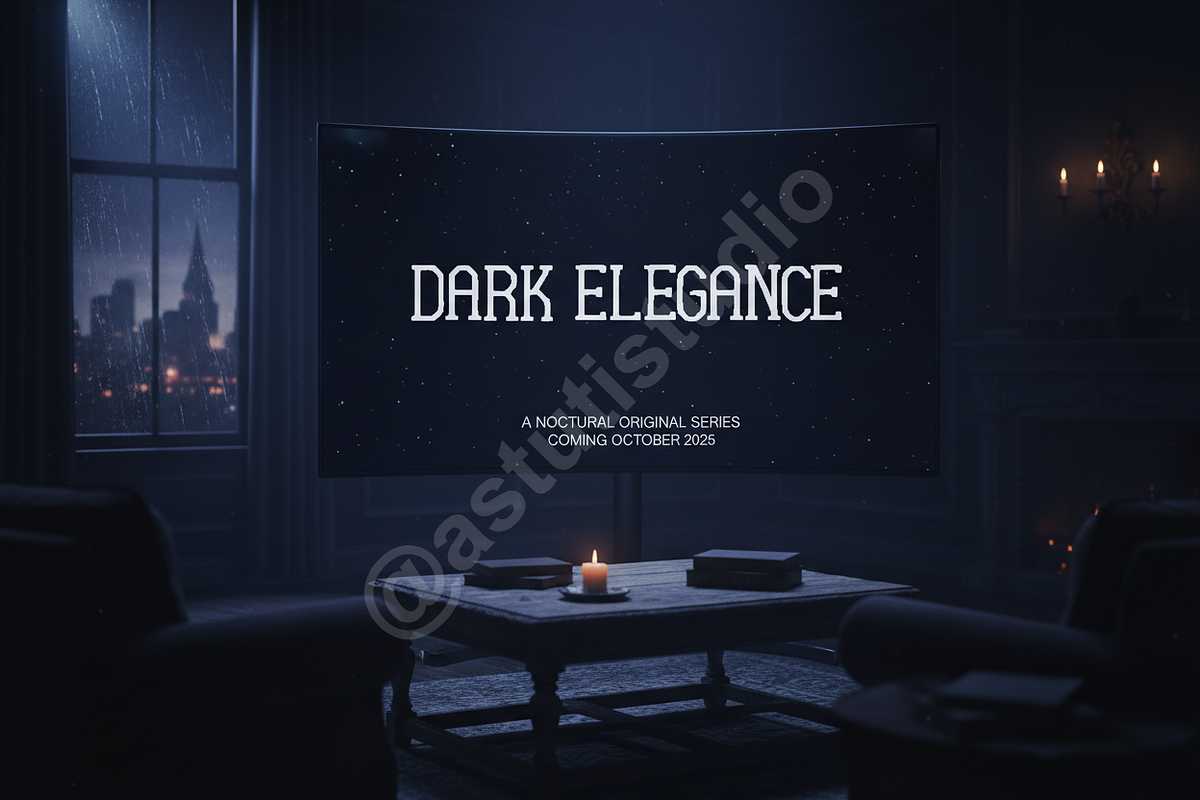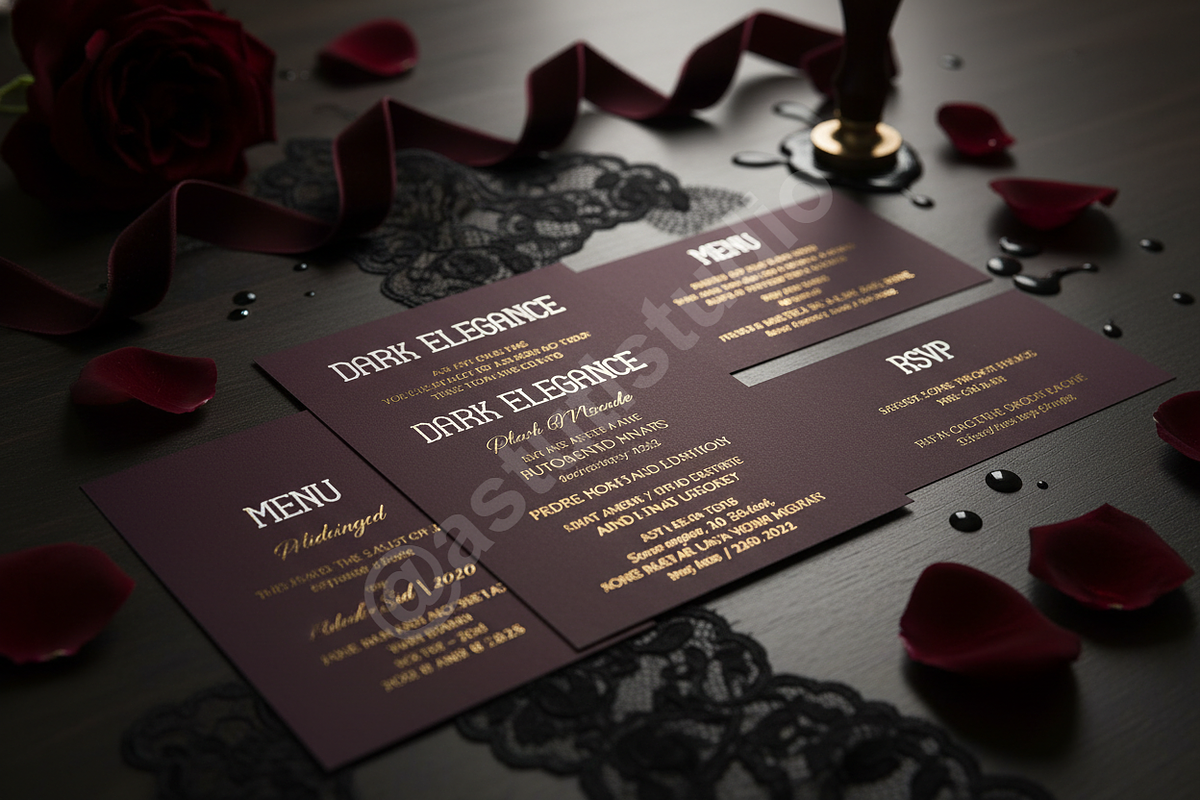
Dinile - Elegant Luxury Serif Typefa
Introducing Dinile, a sophisticated serif typeface designed for the discerning creator. With its refined curves and balanced proportions, Dinile exudes timeless elegance, making it the quintessential choice for luxury branding, high-end editorial layouts, and impactful social media visuals. Elevate your design projects with Dinile's unparalleled charm and versatility.
- Exquisite Serif Design: A harmonious blend of classic elegance and contemporary style.
- Comprehensive Ligatures & Alternates: Enhance typographic aesthetics with stylistic variations for a truly custom look.